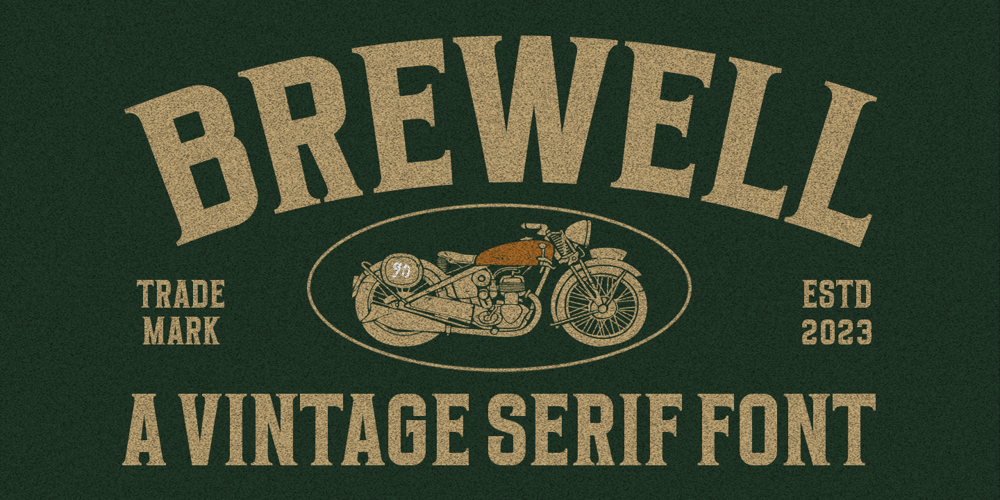
Brewell Font Family was designed by Bangkit Tri Setiadi and published by Blankids. Brewell contains 1 styles and family package options. Hello,Are you looking for a vintage serif font? Do you want of creating Something that stand out and inspire creativity, imagination, and endless fun? Wait no more, we will give you the best choice.Brewell a Vintage Serif Font, Inspiring from college typography. This font is perfect for a design that makes it more attractive and playful. made with a very good level of aesthetics making this font suitable for book cover, poster, packging, merchandise, logotype and much more.Brewell font includes Multilingual Support, among others :_Afrikaans, Albanian, Asu, Basque, Bemba, Bena, Breton, Catalan, Chiga, Cornish, Danish, Dutch, English, Estonian, Faroese, Filipino, Finnish, French, Friulian, Galician, German, Gusii, Indonesian, Irish, Italian, Kabuverdianu, Kalenjin, Kinyarwanda, Luo, Luxembourgish, Luyia, Machame, Makhuwa, Meetto, Makonde, Malagasy, Manx, Morisyen, North Ndebele, Norwegian Bokmål, Norwegian Nynorsk, Nyankole, Oromo, Portuguese, Quechua, Romansh, Rombo, Rundi, Rwa, Samburu, Sango, Sangu, Scottish Gaelic, Sena, Shambala, Shona, Soga, Somali, Spanish, Swahili, Swedish, Swiss German, Taita, Teso, Uzbek (Latin), Volapük, Vunjo, Zulu_FEATURES :- Uppercase- Lowercase- Number- Punctuation- Multilingual- PUA Encode- Opentype